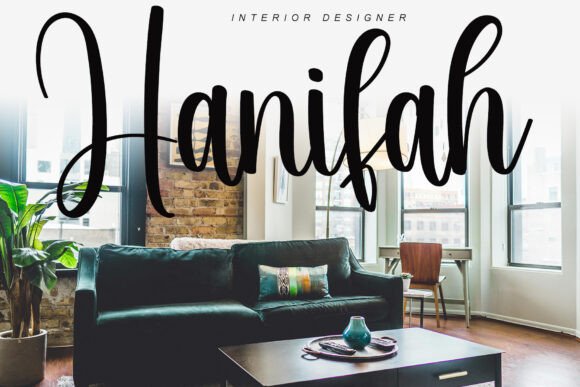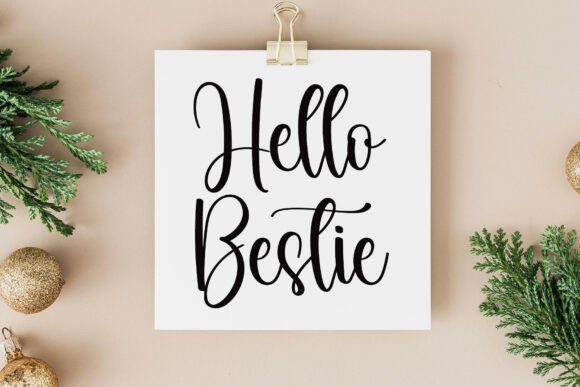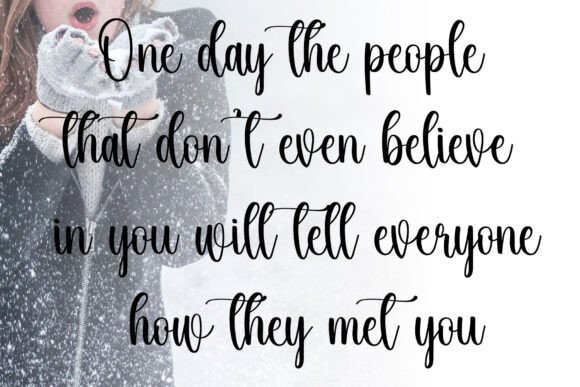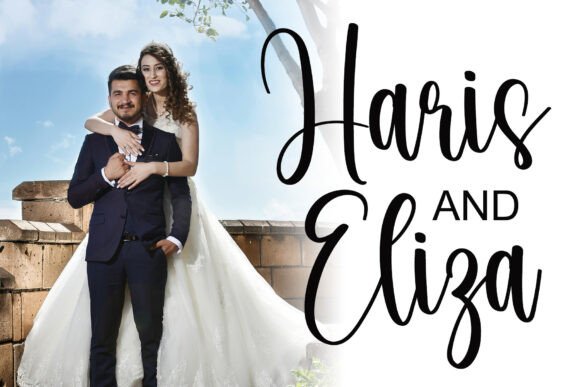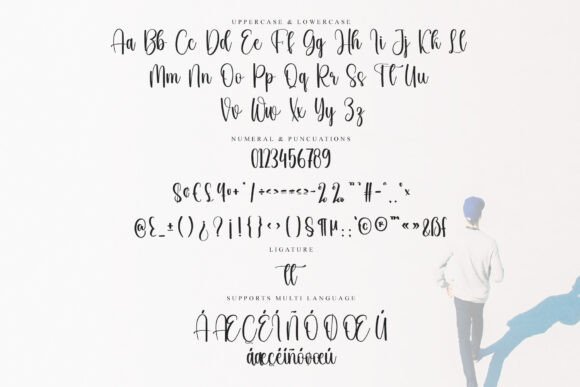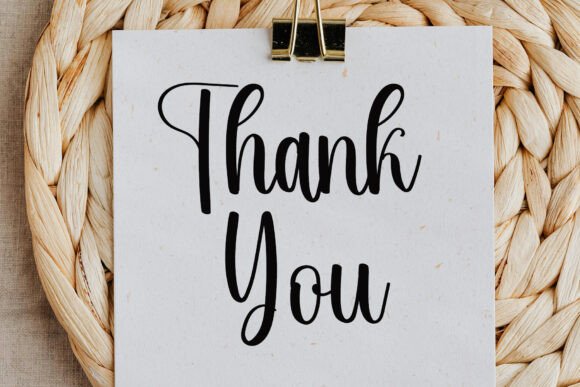
Introducing Bestie Handsome Font: Elevate Your Designs with Elegance
Are you a designer, crafty DIY enthusiast, or social media influencer looking for a font that adds a touch of sophistication to your creative projects? Look no further than the Bestie Handsome Font! This magical handwritten font is carefully crafted to bring a dash of elegance to your designs, making it perfect for Instagram posts, calligraphy scripts, and a wide range of DIY projects.
The Charm of Bestie Handsome Font
Bestie Handsome Font is a beautiful, hand-written typeface that exudes charm and character. Its unique, flowing script is designed to add a personal touch to your designs, setting them apart from the ordinary. Whether you’re creating social media graphics, crafting invitations, or designing labels, this font will help you turn your creative ideas into stunning works of art.
Key Features of Bestie Handsome Font
- Handwritten with love: Each letter is carefully crafted by hand, giving the font a warm, personal feel that’s perfect for designs that require a touch of elegance.
- Magical and elegant: The font’s flowing script and beautiful letterforms make it ideal for creating sophisticated designs that capture attention.
- Versatile: Bestie Handsome Font is perfect for a wide range of projects, from Instagram posts and stories to DIY crafts, invitations, and more.
Why Choose Bestie Handsome Font?
In a world where design trends are constantly evolving, it’s essential to have a font that can keep up with your creative vision. Bestie Handsome Font offers a unique combination of style, elegance, and versatility, making it an excellent choice for designers and crafters who want to:
- Create stunning social media graphics that stand out from the crowd.
- Add a personal touch to their DIY projects, such as handmade cards, invitations, and labels.
- Develop a consistent brand identity that exudes sophistication and elegance.
Using Bestie Handsome Font in Your Designs